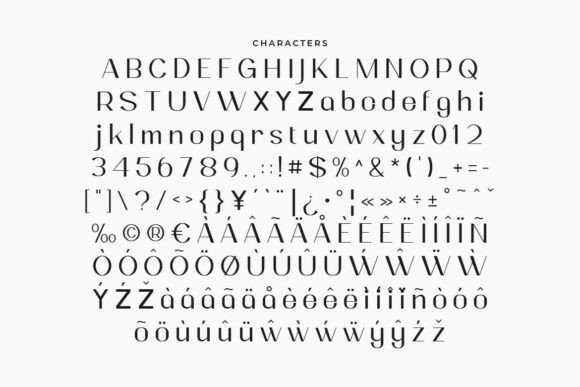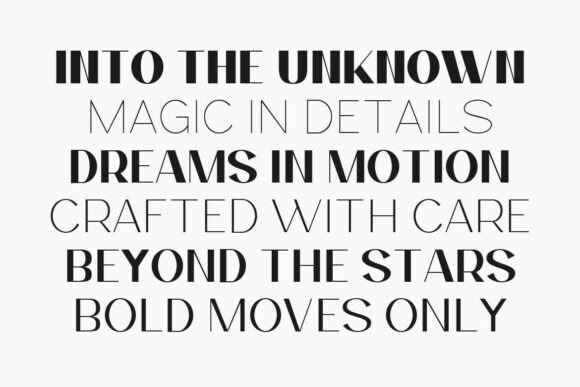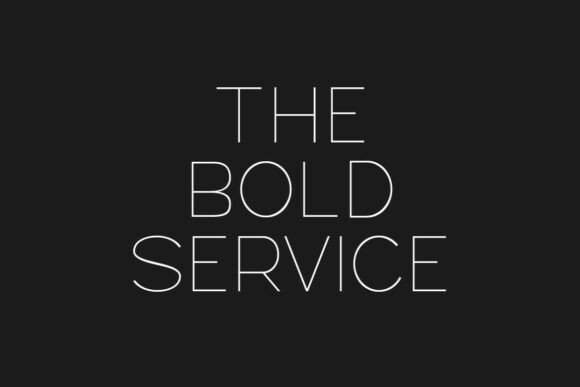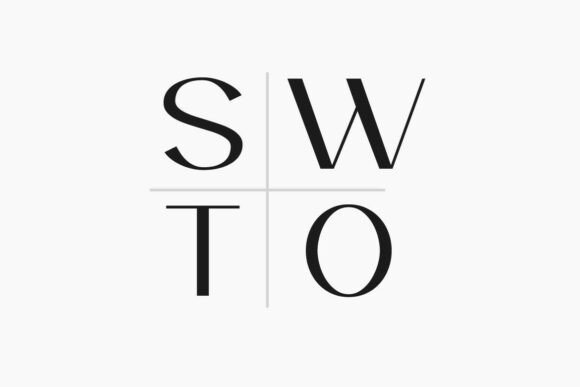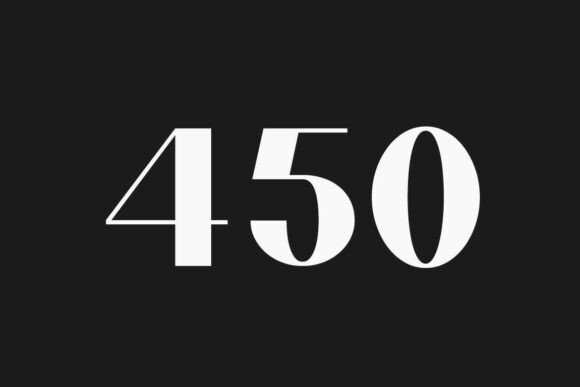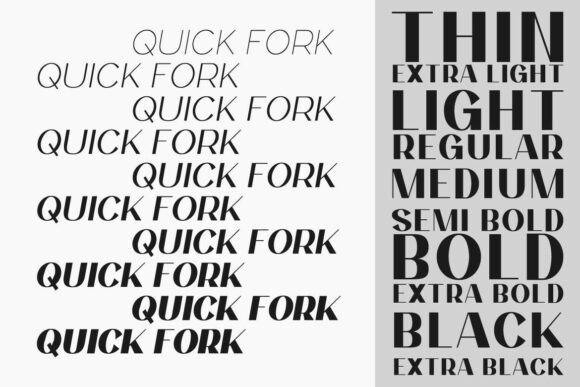
Introduction to Retrive Regular Font
As a designer, you know the thrill of the creative process – the moment when a project comes together, and you see your vision take shape. But what if that vision demands a level of sophistication and elegance that’s hard to achieve? That’s where Retrive Regular Font comes in – a luxury sans-serif font family that exudes high-fashion flair and modern sophistication.
With its distinctive contrast between thick and thin strokes, Retrive Regular Font is a game-changer for designers who want to elevate their creative projects to the next level. Whether you’re working on a branding campaign, an editorial layout, or a fashion campaign, this font family is the perfect design resource to give your work a touch of luxury and high-quality feel.
Key Features of Retrive Regular Font
- High-quality design resource ideal for creative projects, with a clean and modern aesthetic.
- Unique characteristic: The Retrive Regular Font features a distinctive sans-serif design, perfect for modern and minimalist creative projects.
Honest Review: Retrive Regular Font
I recently stumbled upon the Retrive Regular Font while searching for a high-quality design resource for a creative project. I was excited to try it out and see if it lived up to its promise.
Here’s what I think:
- ✨ The Retrive Regular Font is incredibly versatile and easy to use. It’s perfect for body text, headings, or even logos.
- ✨ The transparent background makes it easy to use in conjunction with other design elements.
- ✨ The font is highly legible, making it perfect for long blocks of text.
- ⚠️ The font is not ideal for display text, as it can be a bit too plain.
- ⚠️ The font may not be suitable for designs that require a lot of contrast, as it can blend in with the background.
Overall, I’m impressed with the Retrive Regular Font. While it may not be perfect for every design project, it’s a great resource to have in your toolkit. I’d definitely recommend it for anyone looking for a high-quality, free font.
Retrive Regular Font
The Retrive Regular Font is a versatile and high-quality design resource that can elevate any creative project. With its clean and modern design, it’s perfect for a variety of applications.
The Retrive Regular Font is perfect for:
Logos and branding materials.
Business cards and stationery.
Web design and development.
Print materials, such as brochures and flyers.